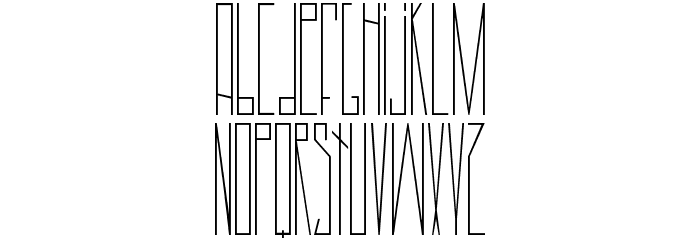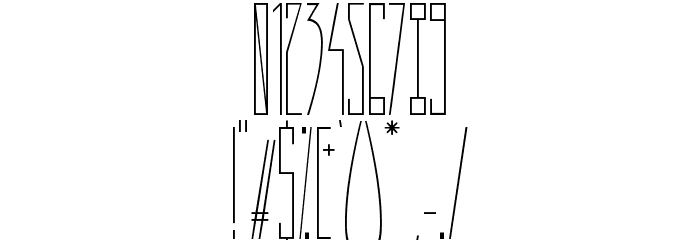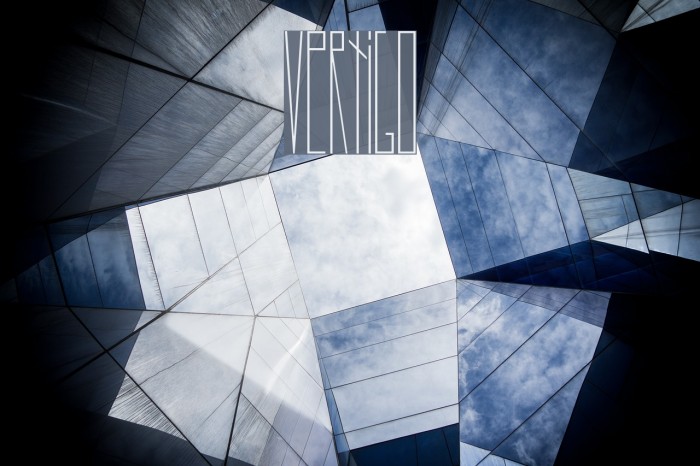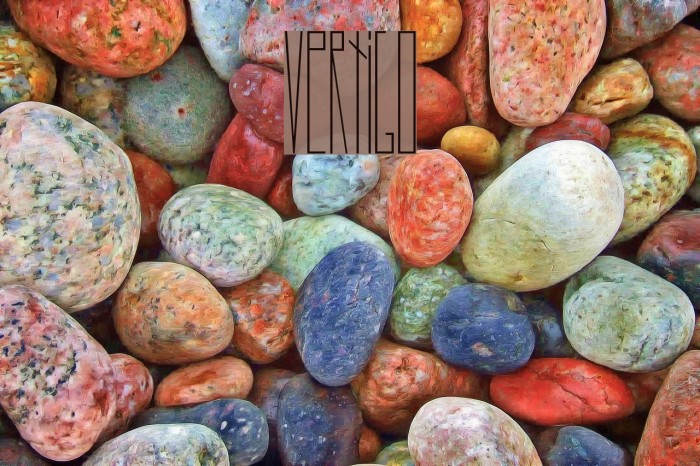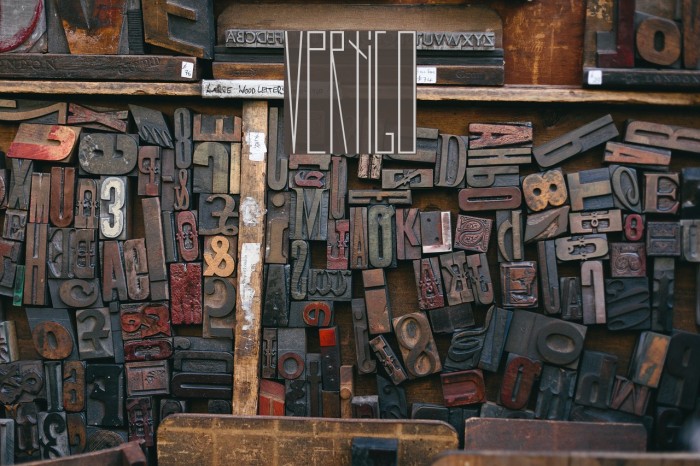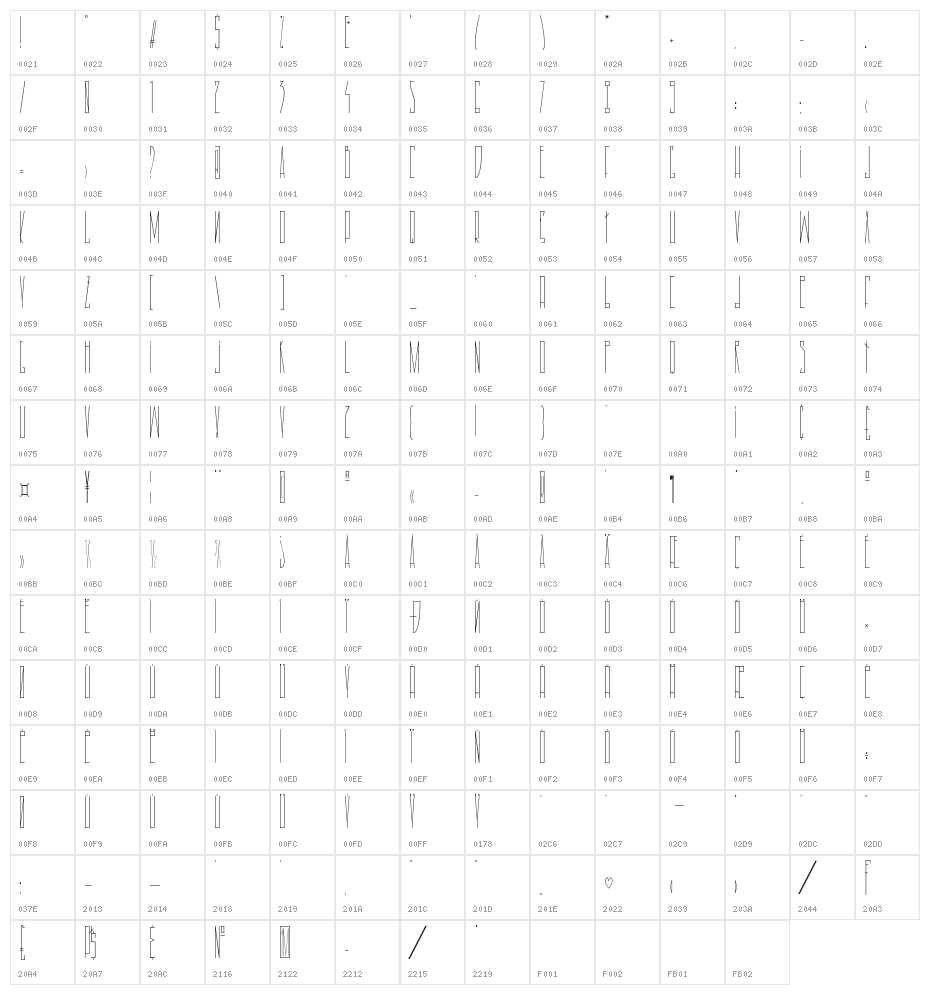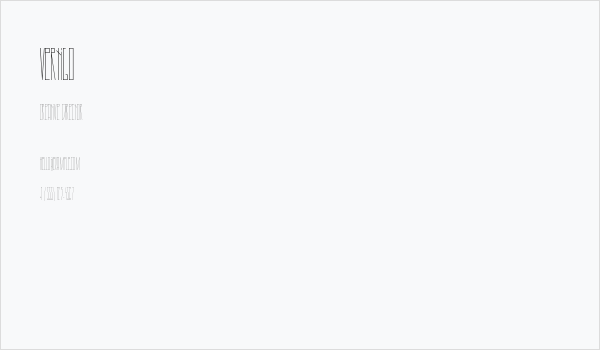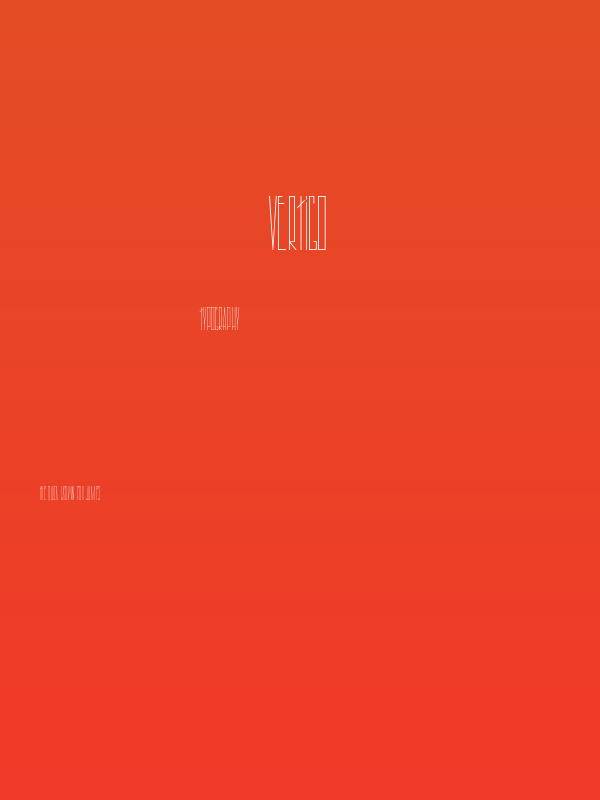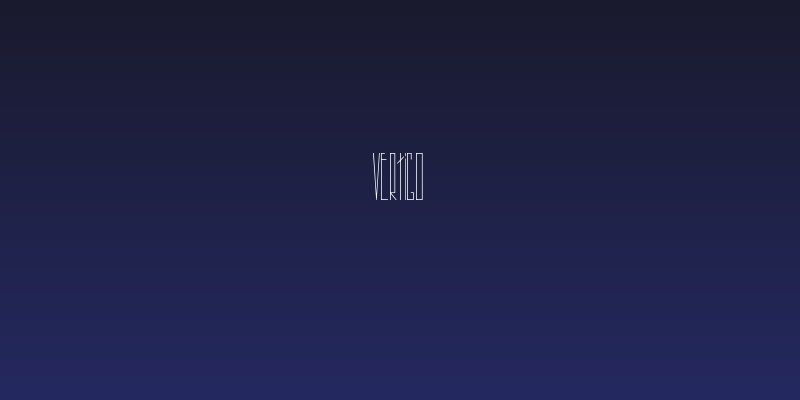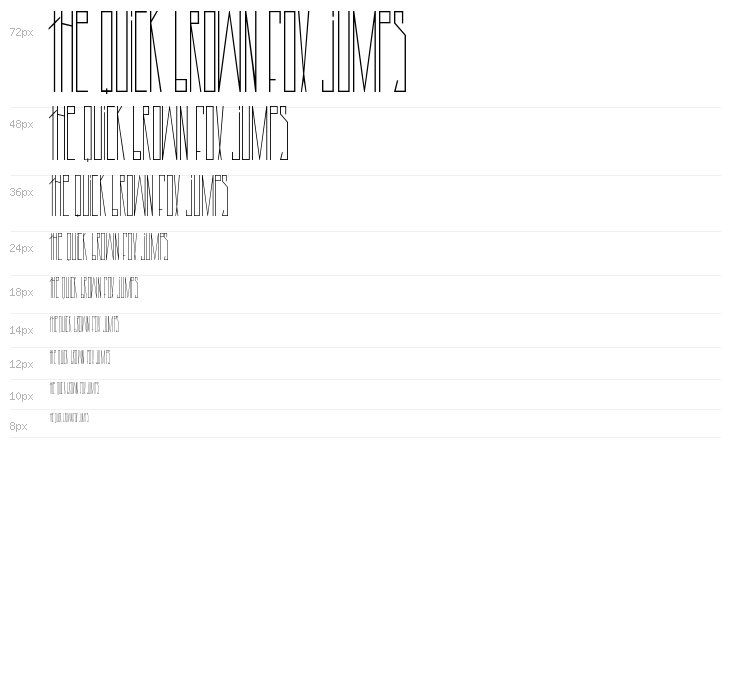
Vertigo Font
This font features an ultra-thin, elongated design with a distinctly modern and geometric aesthetic. The characters are tall and narrow, with sharp angles and clean lines that create a sense of elegance and sophistication. The uppercase and lowercase letters maintain a consistent height, contributing to a uniform appearance. Numbers and special characters follow the same slender and angular style, enhancing the font's cohesive look. This typeface is ideal for projects that require a contemporary and stylish touch, offering a unique visual appeal that stands out.
A modern, ultra-thin, and elongated geometric font with sharp angles.
- Proposed Projects: Ideal for fashion magazines, luxury branding, modern art posters, and high-end product packaging.